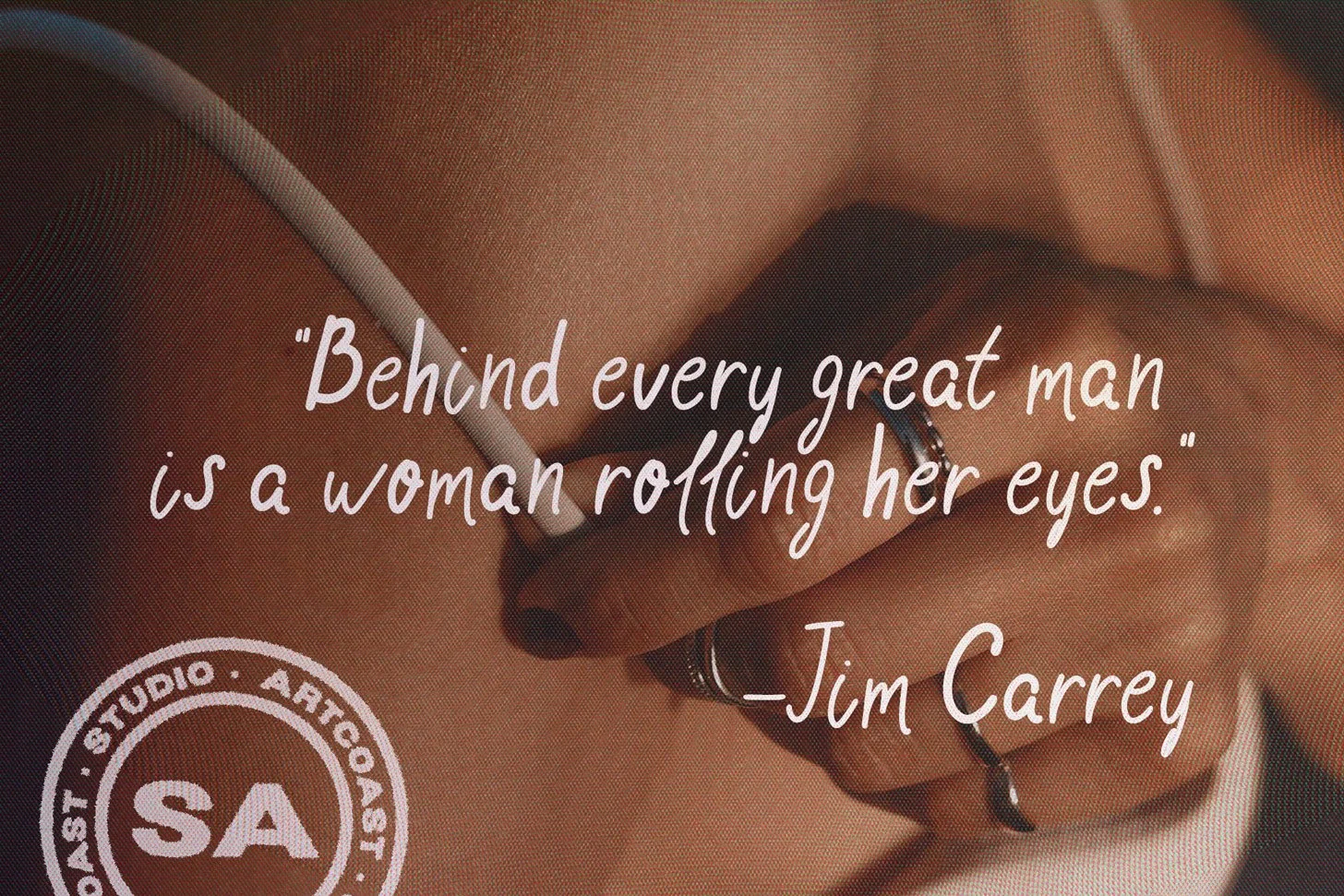
In a world filled with AI-generated images and perfectly polished sans-serifs, audiences are craving something real. They want to see the "hand" behind the brand.
Handwritten typography is the easiest way to bridge that gap. It says: "We are human. We are approachable. We are authentic."
But not all scripts are created equal. Some are for rebels, some for romantics, and some for play. We’ve curated 7 essential handwritten fonts from our collection that will help you define your voice in 2026.
1. For the Rebel: SA No Rules
This is not your grandma’s cursive. This is chaotic, expressive, and raw. It fits perfectly into the "Anti-Design" trend taking over street fashion and music branding.
Best For: Streetwear brands, poster design, protest art, and bold social media quotes.
Vibe: "I don't care about perfection. I care about the message." 👉 Get SA No Rules
2. For the "Quiet Luxury" Brand: Giardino Albino
Elegance doesn't have to be stiff. Giardino Albino captures the flow of a fountain pen on expensive paper. It’s airy, light, and deeply personal.
Best For: High-end wedding invitations, jewelry branding, photography watermarks, and sophisticated packaging.
Vibe: A love letter written in a Parisian café. 👉 Get Giardino Albino
3. For the Creative Entrepreneur: SA Killeen
Sometimes you need the authority of a serif but the warmth of a hand-drawn letter. SA Killeen is a hybrid: a Handwritten Serif. It’s readable enough for headlines but quirky enough to stand out.
Best For: Personal blogs, coaching businesses, editorial headers, and book covers.
Vibe: Smart, trustworthy, but approachable. 👉 Get SA Killeen Modern Serif
4. For the Urban Storyteller: Brooshes
Texture is king. Brooshes looks like it was written with a thick, dry marker on a wall. It has grit and energy that flat digital fonts lack.
Best For: YouTube thumbnails, podcast covers, gym/fitness branding, and urban event flyers.
Vibe: Loud, energetic, and fast-paced. 👉 Get Brooshes Font
5. For the Cozy & Playful: SA Papaya
The "Doodle" aesthetic is huge for Gen Z brands. SA Papaya is round, bouncy, and undeniably cute without being childish. It feels safe and friendly.
Best For: Kids' clothing brands, eco-friendly food packaging, pet products, and "How-to" Instagram carousels.
Vibe: A sunny weekend morning with coffee. 👉 Get SA Papaya
6. For the Rustic Soul: Woody Wood
If your brand talks about nature, hiking, or organic materials, you need a font that feels grounded. Woody Wood mimics the texture of carving or rough pencil sketching.
Best For: Coffee shops, outdoor gear, craft beer labels, and farm-to-table restaurant menus.
Vibe: Warm, earthy, and unpretentious. 👉 Get Woody Wood
7. For the Classic Romantic: SA Washington Ink Pen
Digital weddings need soul. This font replicates the unpredictable ink flow of a dip pen. It includes messy alternates and ink splatters that make it look truly handmade.
Best For: Wedding stationery, calligraphy logos, greeting cards, and flower shop branding.
Vibe: Timeless romance and tradition. 👉 Get SA Washington Ink Pen
Your font choice is your brand's body language. In 2026, don't be afraid to be a little messy. Whether you choose the chaotic energy of No Rules or the refined grace of Giardino Albino, adding a handwritten touch is the fastest way to connect with your audience.